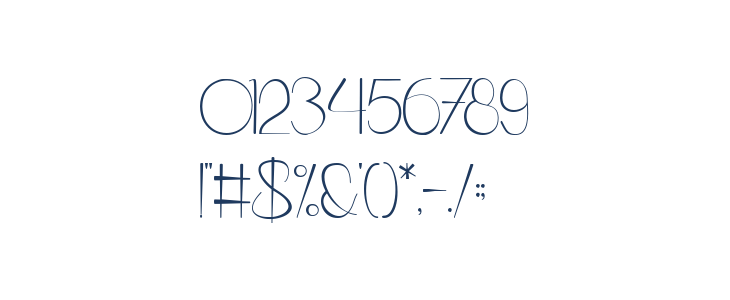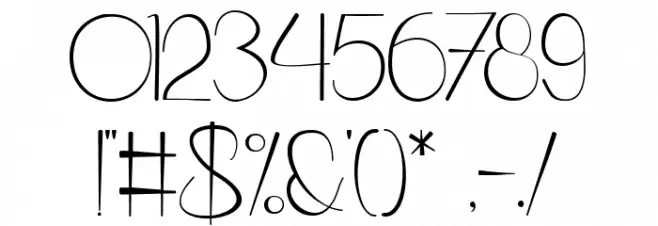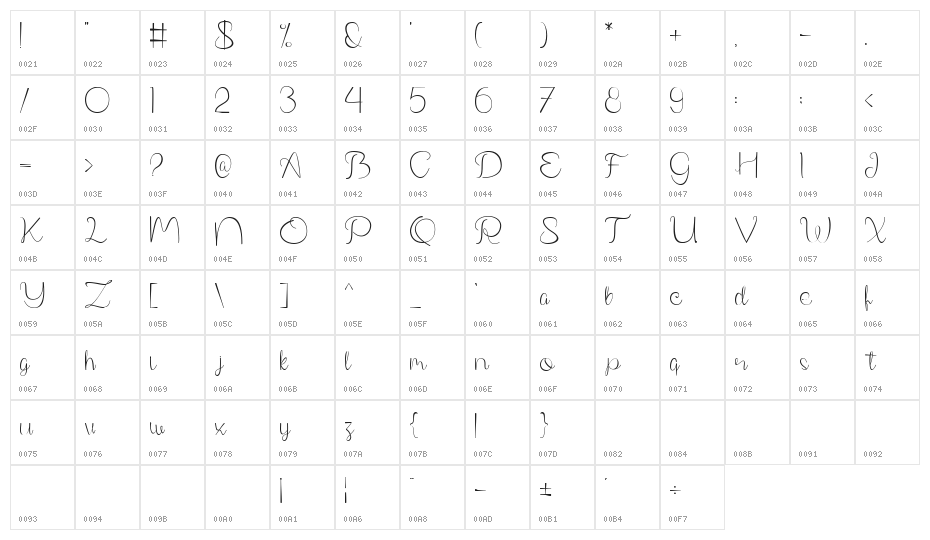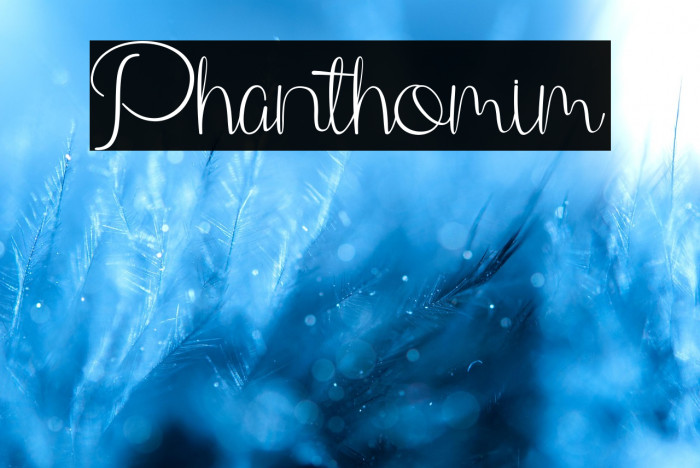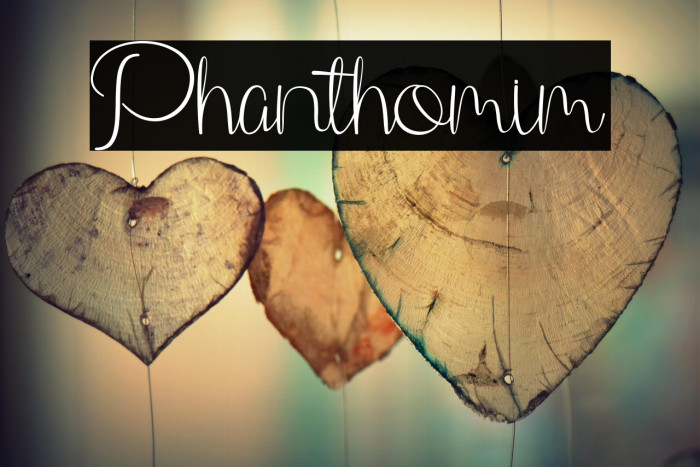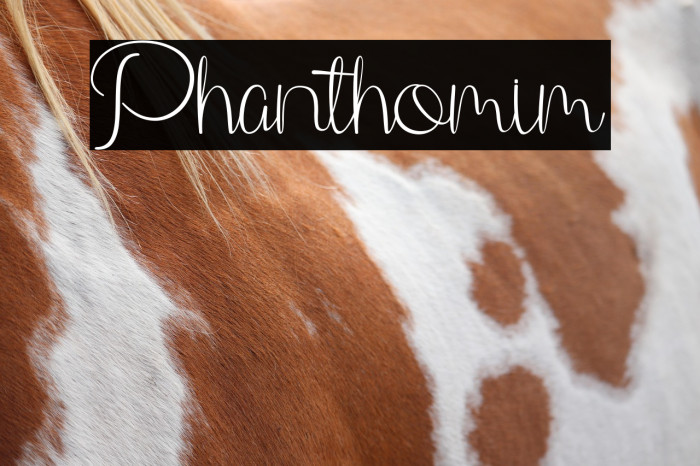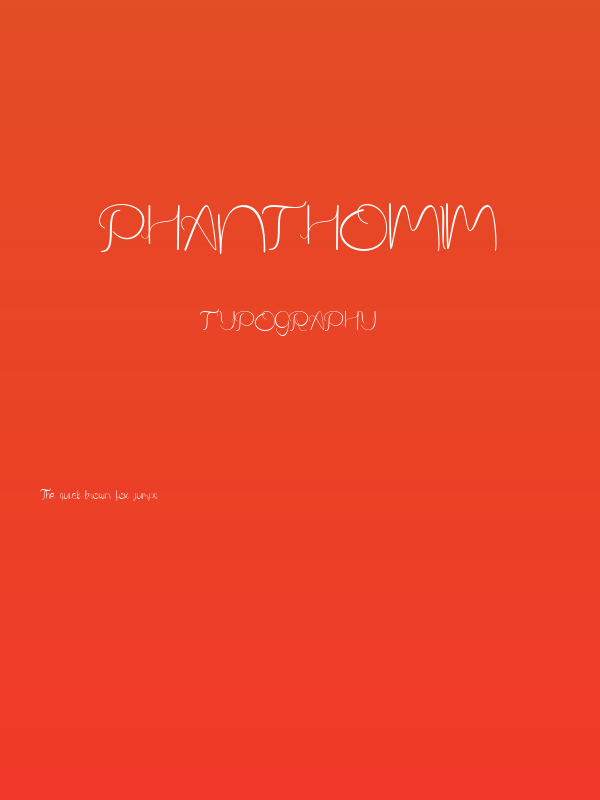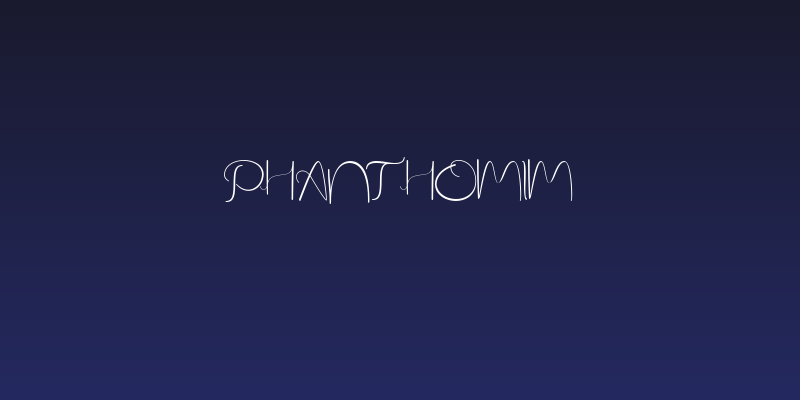
Phanthomim Font
Phanthomim Description
This font features a whimsical and elegant script style, characterized by its flowing, interconnected letterforms. The uppercase letters exhibit a graceful, airy quality with elongated strokes and subtle curves, while the lowercase letters maintain a playful and fluid appearance. The numerals are consistent with the overall style, offering a harmonious blend of curves and lines. Special characters are thoughtfully integrated, maintaining the font's cohesive aesthetic. This font's delicate and artistic nature makes it suitable for creative and expressive design projects.
Use CaseLogos, Invitations, Artistic projects
Proposed ProjectsIdeal for wedding invitations, greeting cards, branding, and artistic projects where a personal touch is desired.